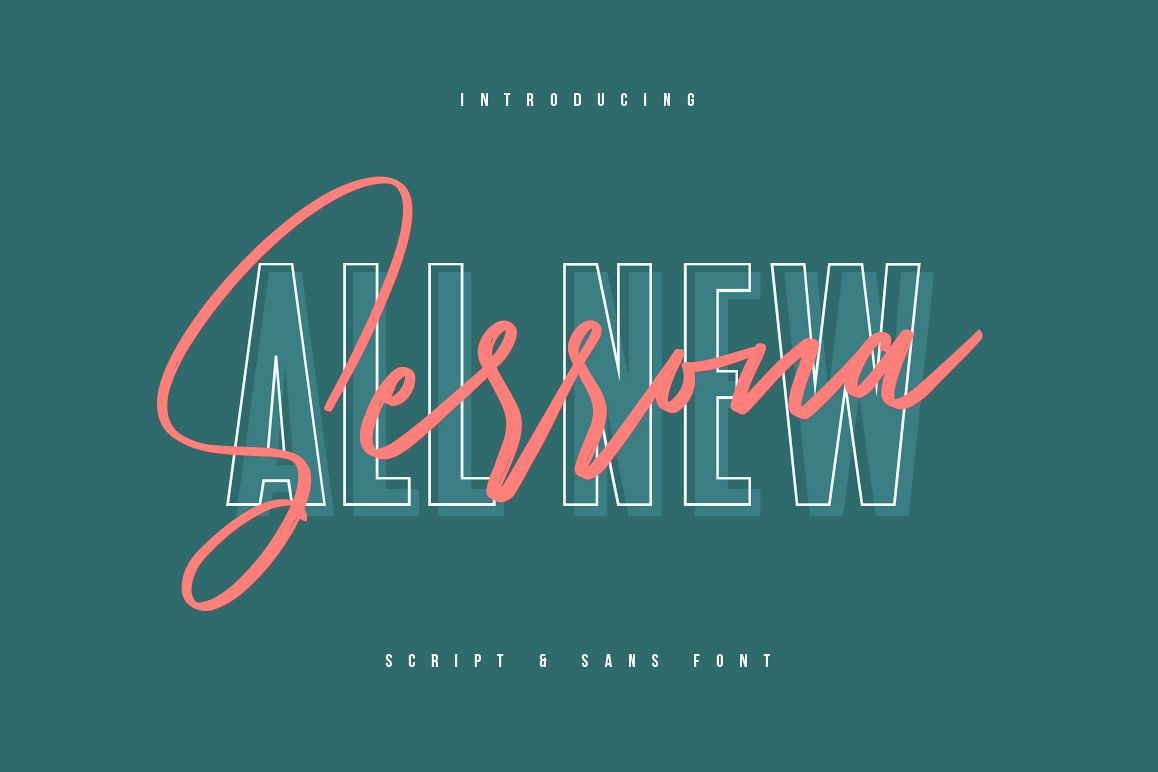
Give your designs an authentic brush handcrafted feel. "Serrona Script" is perfectly suited to signature, stationery, logo, typography quotes, magazine or book cover, website header, clothing, branding, packaging design and more.This font available: